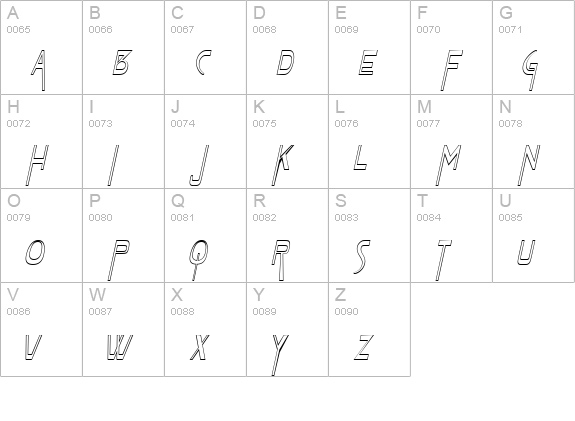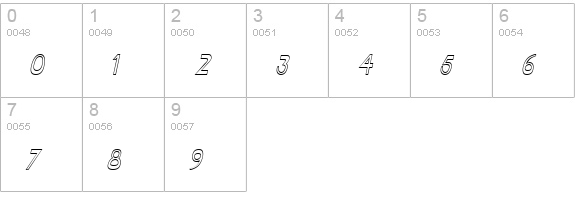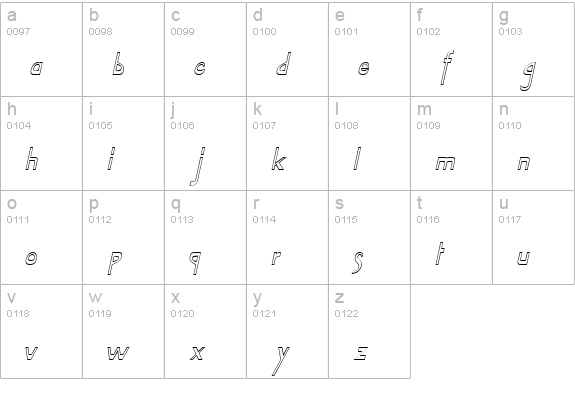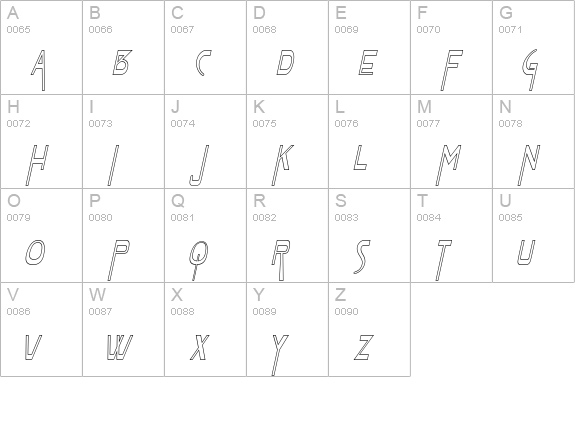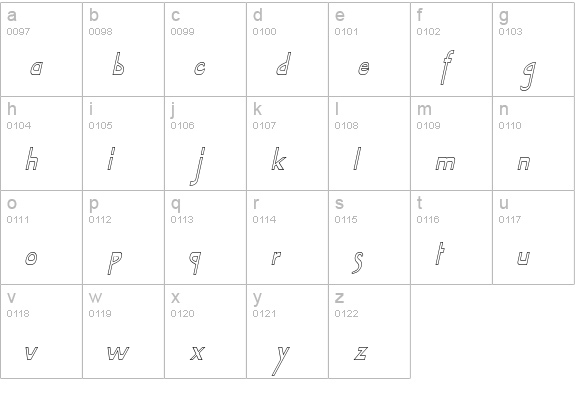
TabletHollowCondensed Italic Font Details
TabletHollowCondensed Italic is a distinctive, italic variant in the TabletHollowCondensed typeface family \xE2\x80\x94 well suited to design and typography projects.
TabletHollowCondensed Italic font is a stylish and modern typeface that exudes elegance and sophistication. Its slim and condensed design creates a sleek and streamlined look, making it perfect for any project that requires a touch of sophistication. The italic style of TabletHollowCondensed adds a sense of dynamism and movement to the text, making it visually engaging and eye-catching. This font is versatile and can be used for various purposes, including headlines, logos, branding, and more. With its unique and distinctive design, TabletHollowCondensed Italic font stands out from the crowd and adds a touch of personality to any project. Whether you're designing a website, creating a brochure, or working on a poster, this font will help you make a bold statement. The best part is that TabletHollowCondensed Italic font is freely available to download at FontsMarket.com. You can easily access and use this font for personal and commercial projects without any limitations. So why wait? Get your hands on this amazing font and take your designs to the next level.